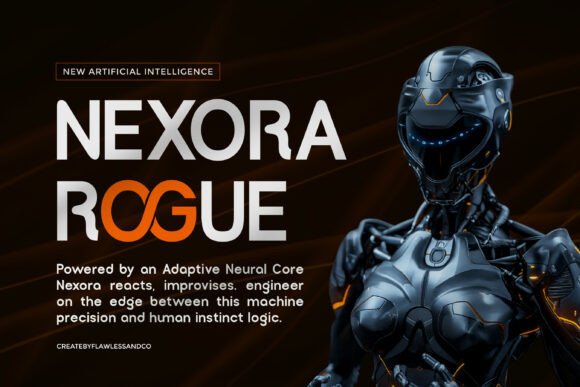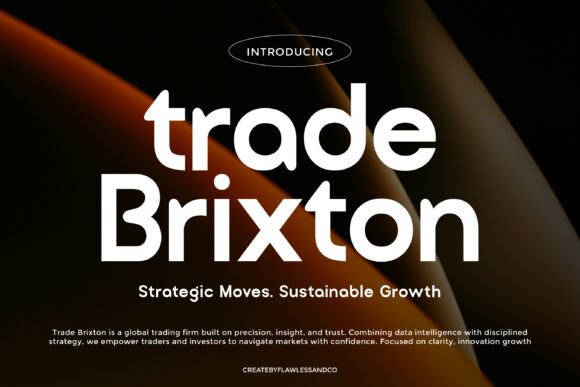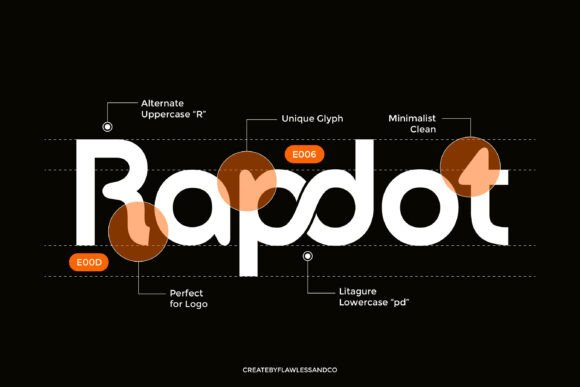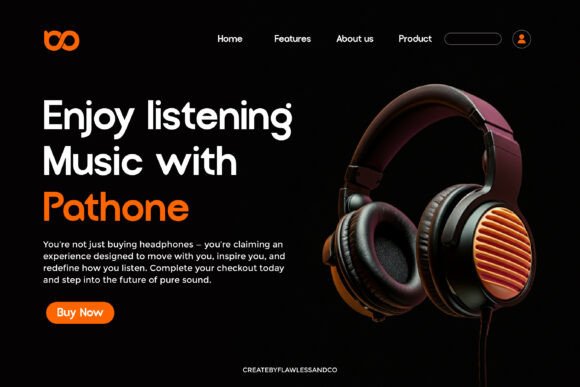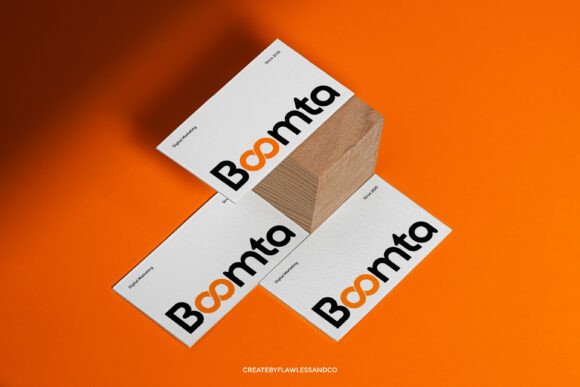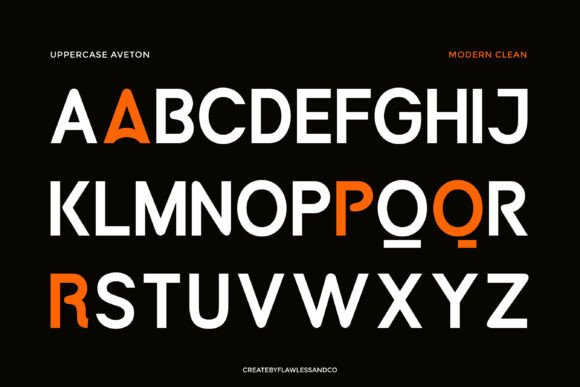
Introducing Aveton Font: The Epitome of Modern Sans Serif Typography
In the realm of typography, a font can make or break a brand’s identity. For professionals and designers seeking to create a lasting impression, Aveton Font emerges as a game-changer. This modern sans serif typeface is meticulously crafted for professional brand identities and sleek corporate logo designs, offering a perfect blend of boldness and sophistication.
The Design Philosophy Behind Aveton
Aveton’s design is rooted in a deep understanding of what makes a brand stand out. Its clean structure, smooth curves, and minimalistic form are not mere aesthetic choices but are purposefully designed to create a bold yet sophisticated visual impact. This balance ensures that Aveton can adapt to various branding needs, from tech startups to established corporations, without losing its unique charm.
Key Features of Aveton Font
- Clean Structure: Aveton’s architecture is characterized by its clean and uncluttered design. This feature ensures that the font remains highly legible across different platforms and sizes, making it versatile for a wide range of applications.
- Smooth Curves: The incorporation of smooth curves adds a touch of elegance and approachability to Aveton. This balance of straight lines and curves prevents the font from feeling too rigid or cold, making it more relatable and engaging.
- Minimalistic Form: Embracing the principles of minimalism, Aveton’s form is stripped down to its essential elements. This not only gives the font a timeless appeal but also ensures that it can seamlessly integrate into various design contexts without overwhelming the viewer.
Aveton in Brand Identity and Logo Design
Aveton’s design precision and balance make it an invaluable asset for any branding project. Its use can elevate a brand’s visual identity, conveying a sense of confidence and clarity. For brands that prioritize professionalism, innovation, and a timeless appeal, Aveton offers a typographic solution that can adapt and evolve with their identity.
Advantages for Designers and Brands
- Versatility: Aveton’s adaptability makes it suitable for a myriad of design applications, from digital interfaces to print materials.
- Legibility: Its clear and distinct letterforms ensure high legibility, even at smaller sizes, which is crucial for effective communication.
- Uniqueness: While Aveton fits well within the sans serif category, its unique design elements help brands stand out in a crowded market.
- Timelessness: The font’s classic yet modern design ensures that it won’t become outdated, providing long-term value for brands.
Aveton Font represents a significant advancement in sans serif typography, offering designers and brands a powerful tool for creating compelling brand identities and logo designs. Its blend of modernity, sophistication, and legibility makes it an ideal choice for those aiming to make a lasting impression. As the design landscape continues to evolve, Aveton stands ready to meet the needs of forward-thinking brands and designers.